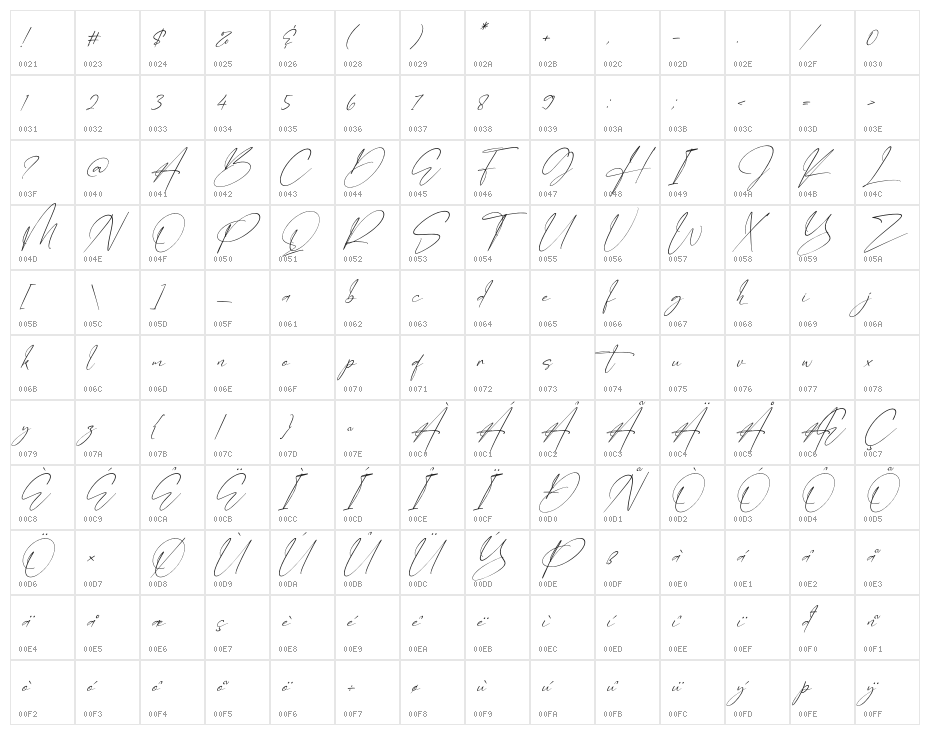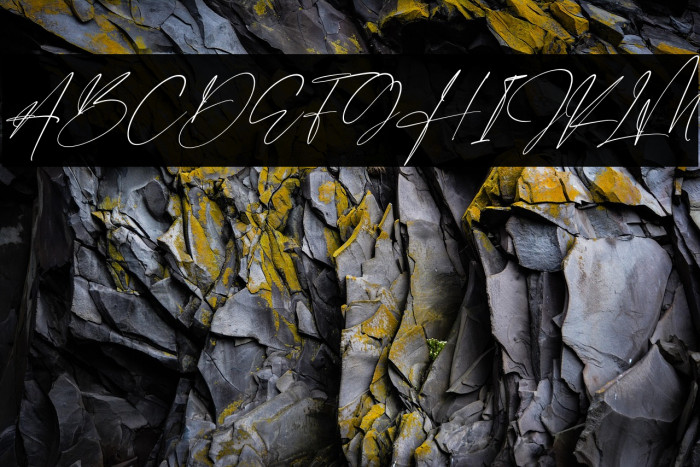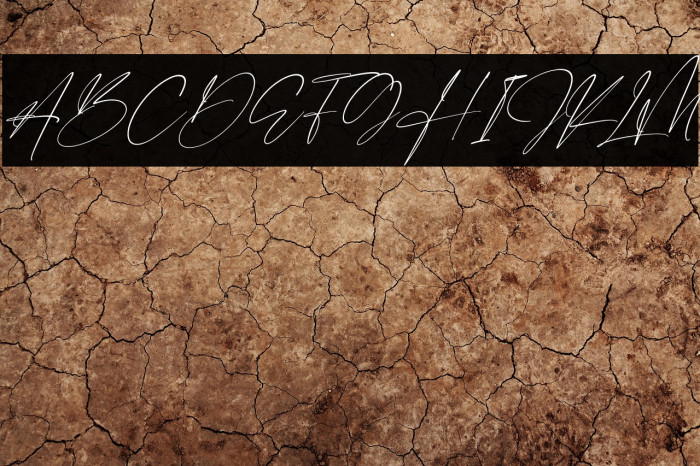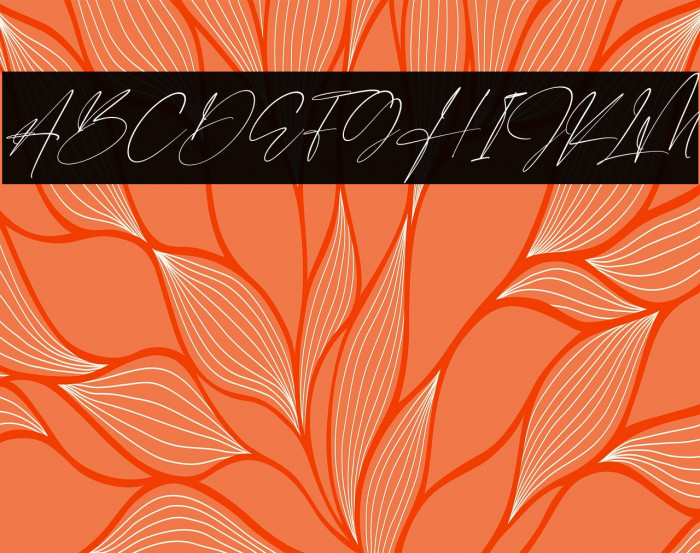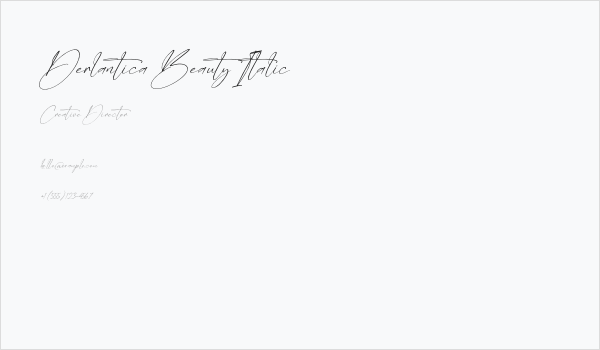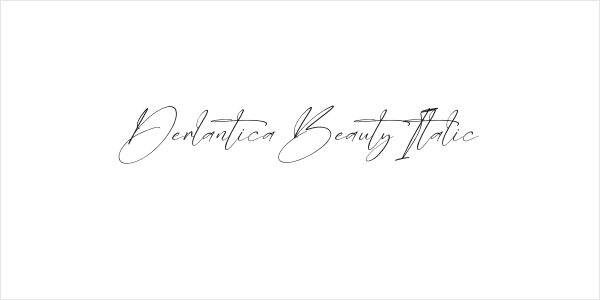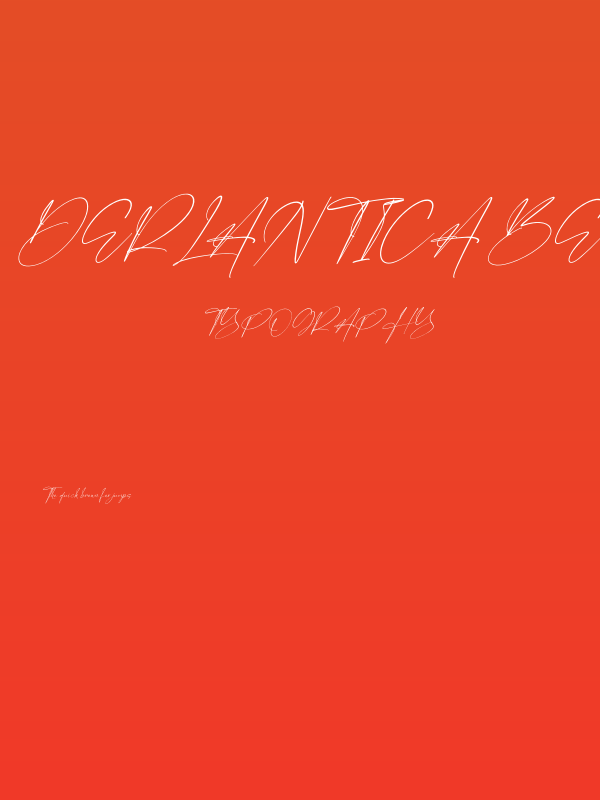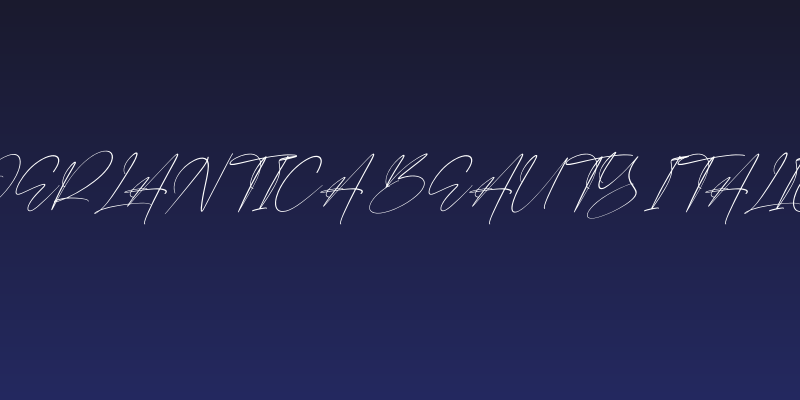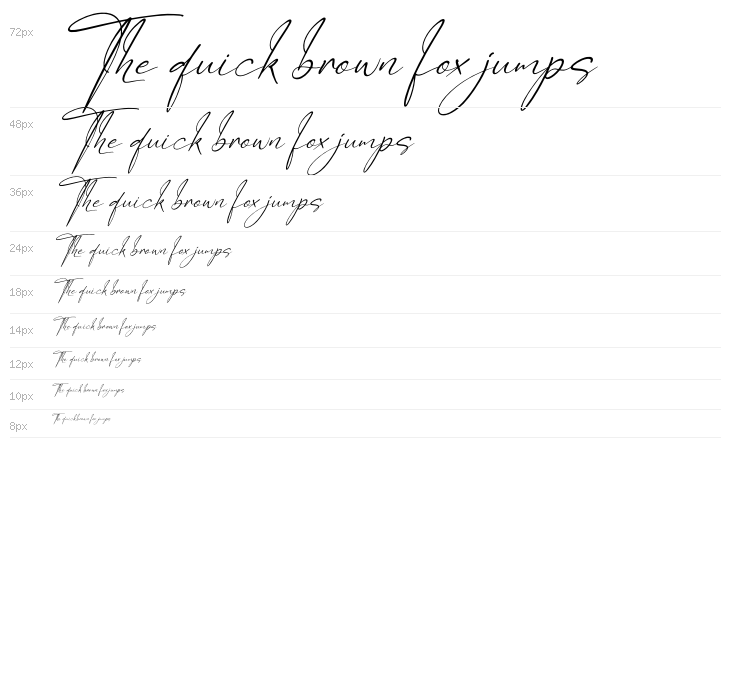
Derlantica Beauty Italic Font
Derlantica Beauty Italic Description
This font exudes elegance and sophistication with its flowing, cursive style. The letters are intricately designed, featuring smooth curves and delicate strokes that create a sense of movement and grace. The uppercase letters are bold and striking, while the lowercase letters maintain a consistent fluidity. Numbers and special characters are crafted with the same attention to detail, ensuring a cohesive look across all elements. The overall appearance is both modern and timeless, making it suitable for a variety of design projects.
| Overall Style | Elegant, Modern |
| Proposed Projects | Ideal for wedding invitations, luxury branding, elegant packaging, and high-end editorial design. |